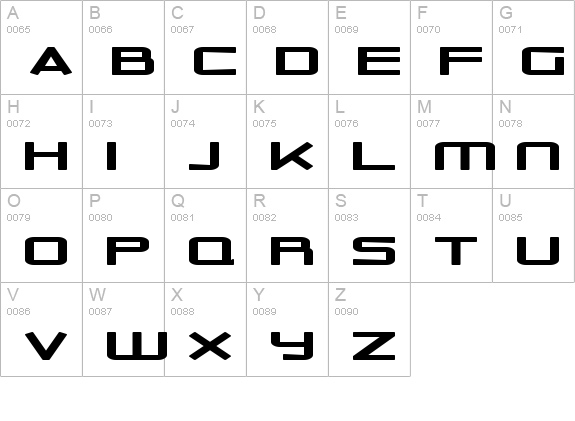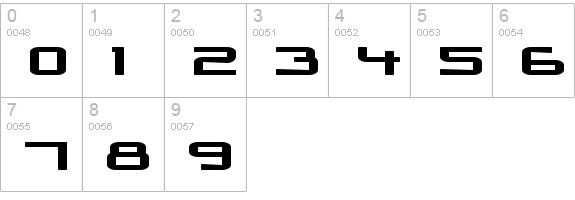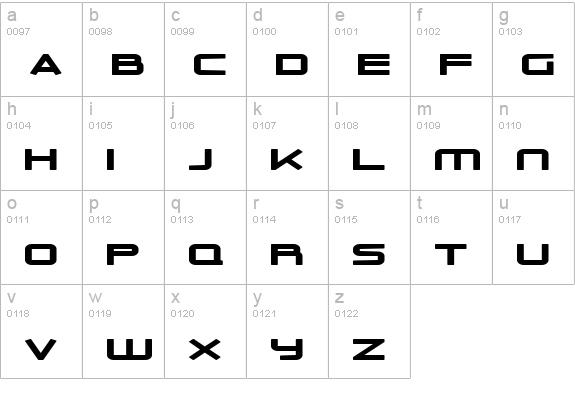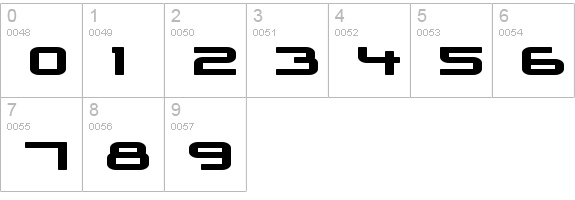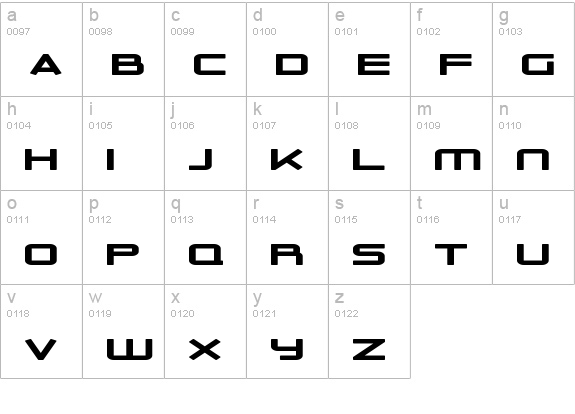
Outer Limits Solid Extended is a distinctive, extended-width variant in the Outer typeface family \xE2\x80\x94 well suited to design and typography projects.
Outer Limits Solid Extended font is a modern and stylish typeface that exudes a sense of strength and stability. Its clean lines and bold appearance make it perfect for a wide range of design projects, from posters to logos to branding materials. The extended version of this font adds a touch of elegance and sophistication, making it stand out from the crowd. What sets Outer Limits Solid Extended font apart is not only its striking appearance but also the fact that it is available for free. Yes, you read that right - this high-quality font can be downloaded at no cost from FontsMarket.com. Whether you are a designer looking to add a unique touch to your work or a business owner wanting to elevate your brand identity, Outer Limits Solid Extended font is a fantastic choice that won't break the bank. Download it today and see the difference it can make in your projects.